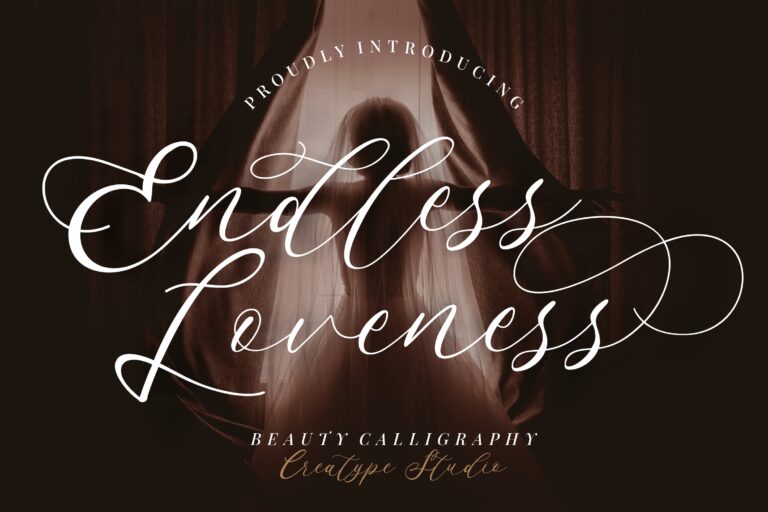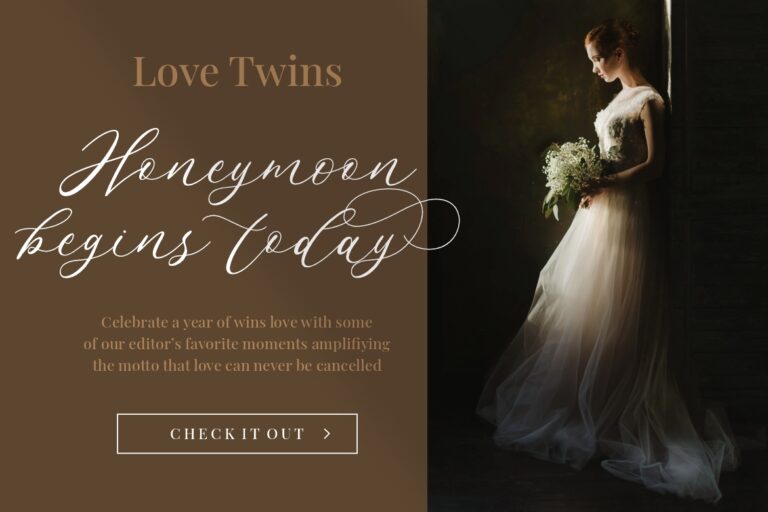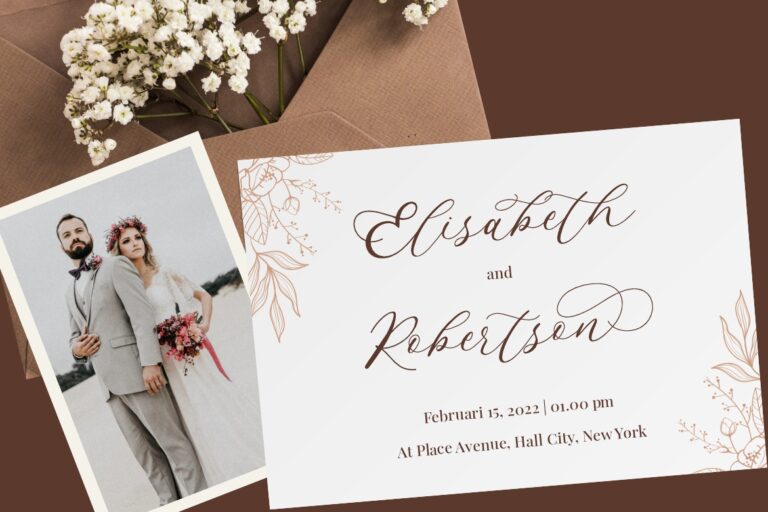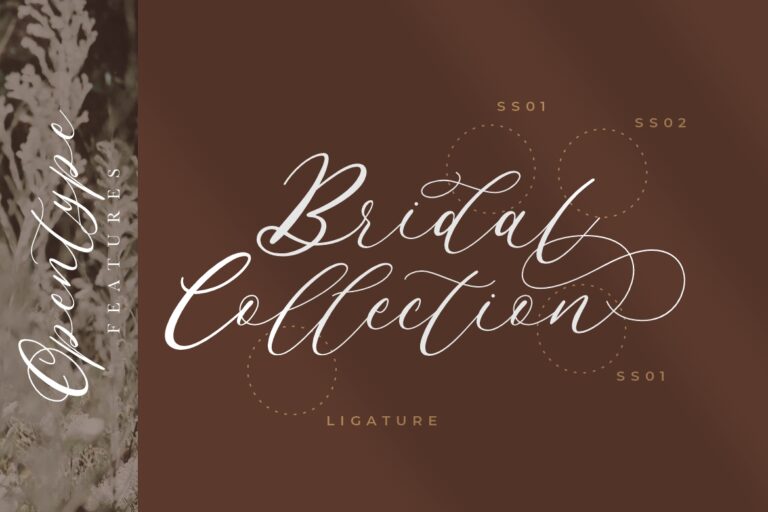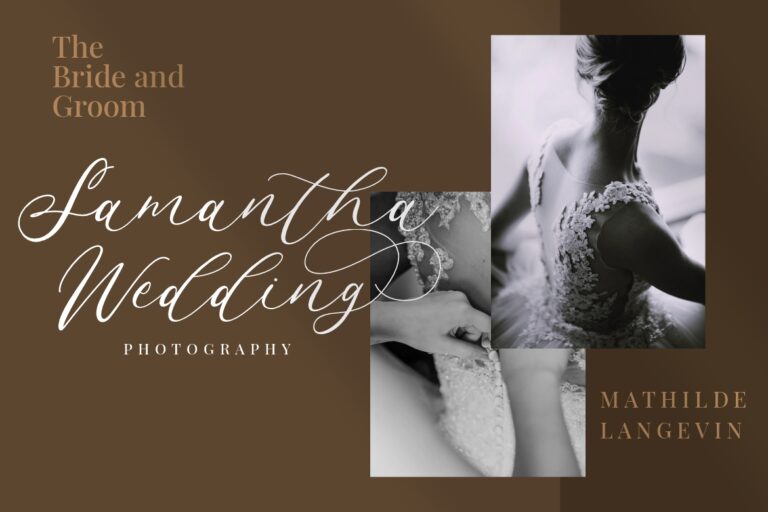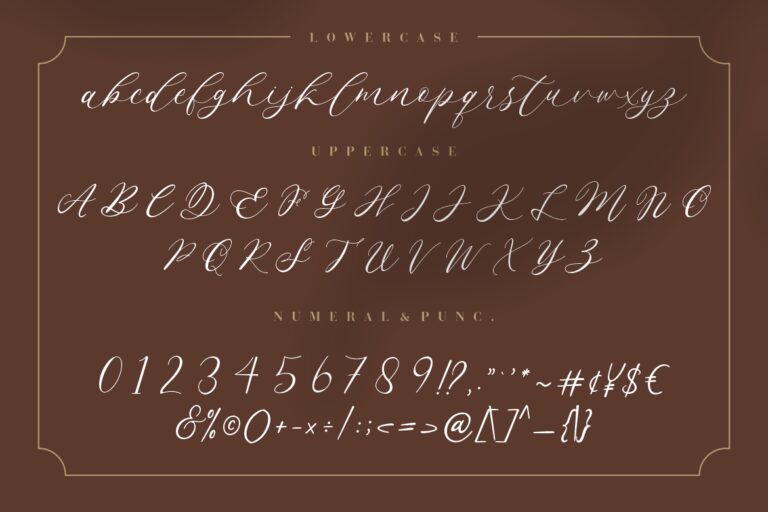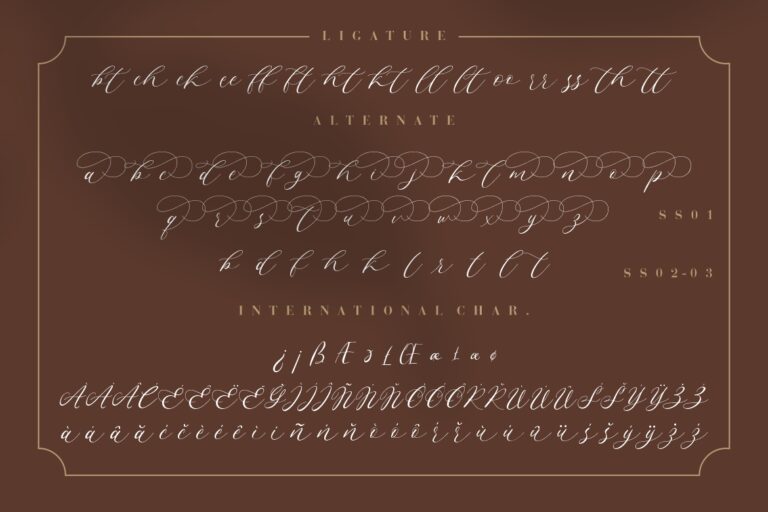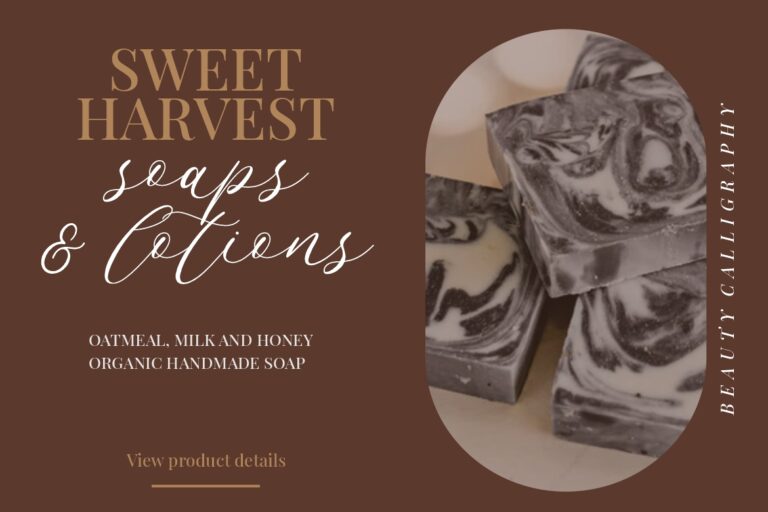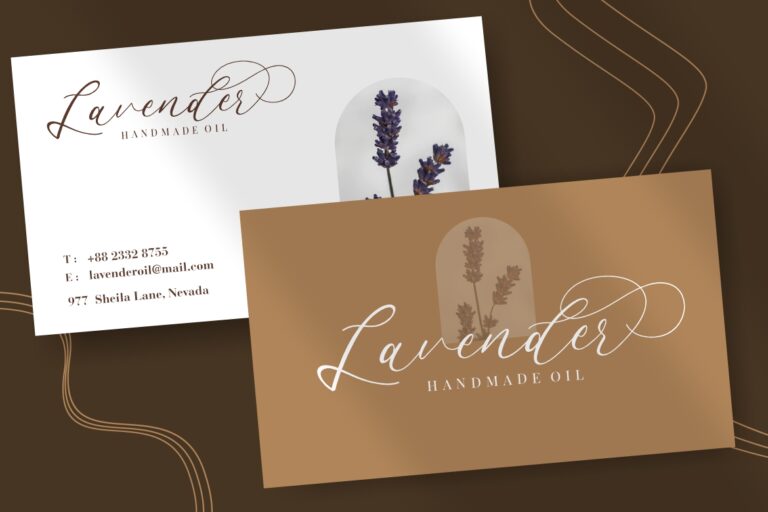
Endless Loveness is a luxury script font where you can use for your elegant wedding invitation.
Endless Loveness is perfect for branding projects, logo, wedding designs, social media posts, advertisements, product packaging, product designs, label, photography, watermark, invitation, stationery and any projects that need handwriting taste.
• Ton of glyphs
• Ligature, Alternate & Swashes
• Fonts include multilingual support for; Afrikaans, Albanian, Czech, Danish, Dutch, English, Estonian, Finnish, French, German, Hungarian, Italian, Latvian, Lithuanian, Norwegian, Polish, Portugese, Slovak, Slovenian, Spanisch, Swedish.
Endless Loveness Beauty Calligraphy